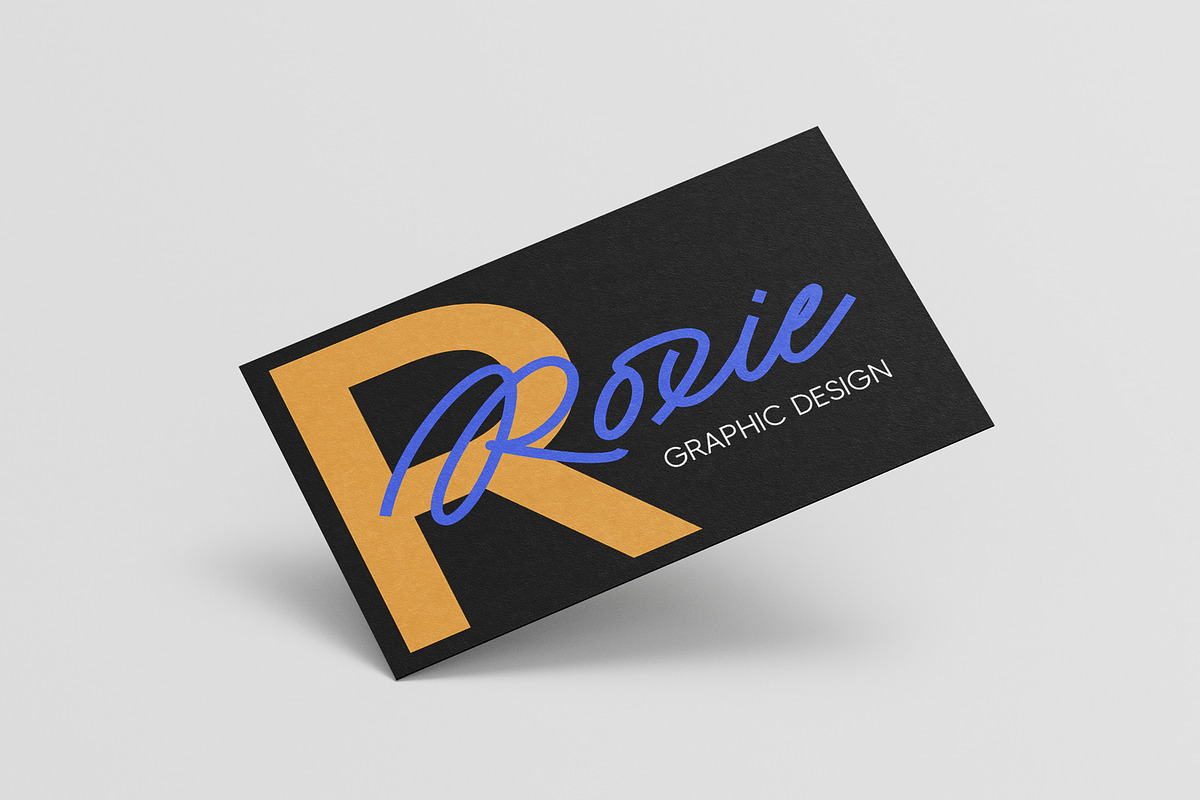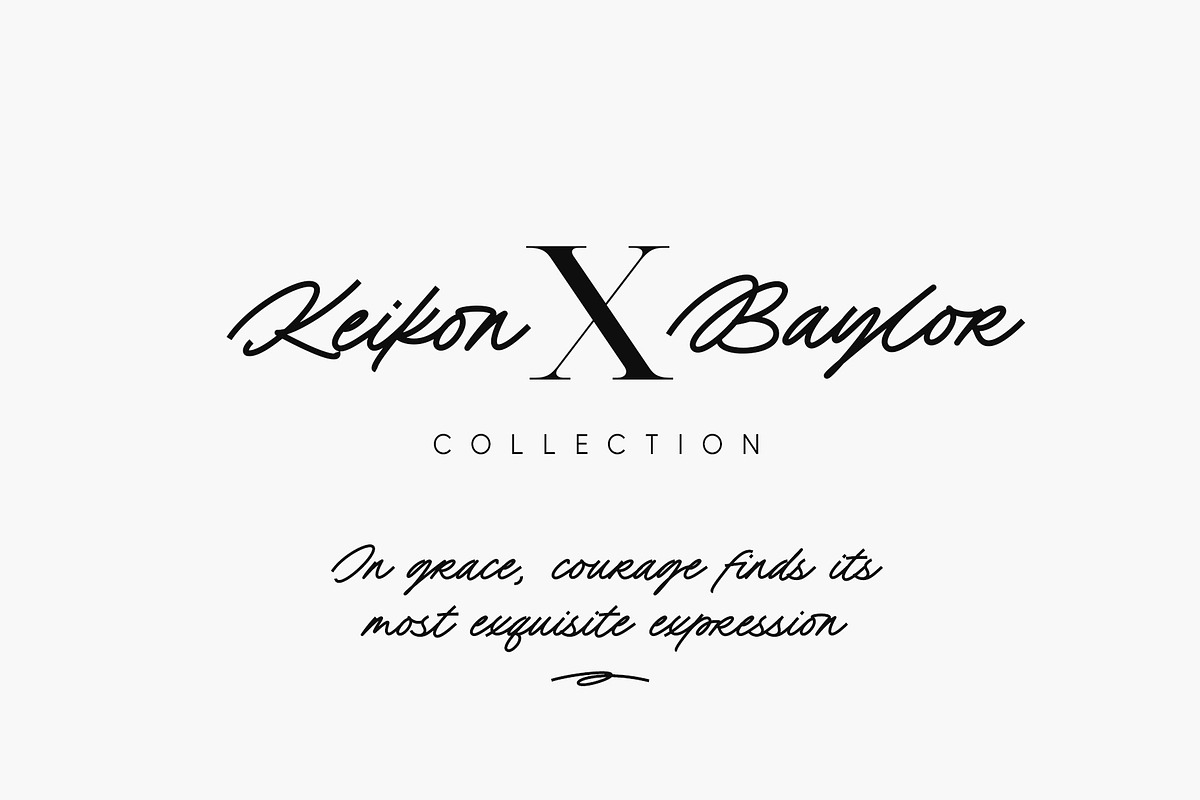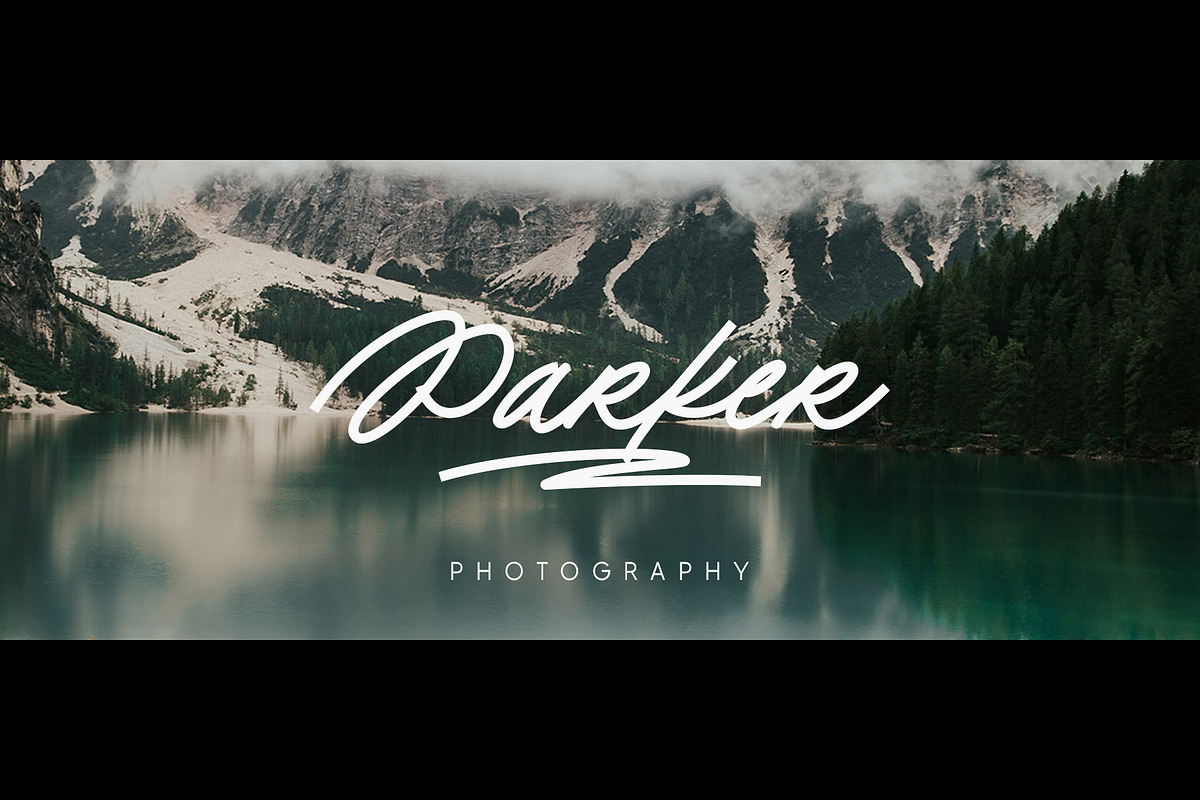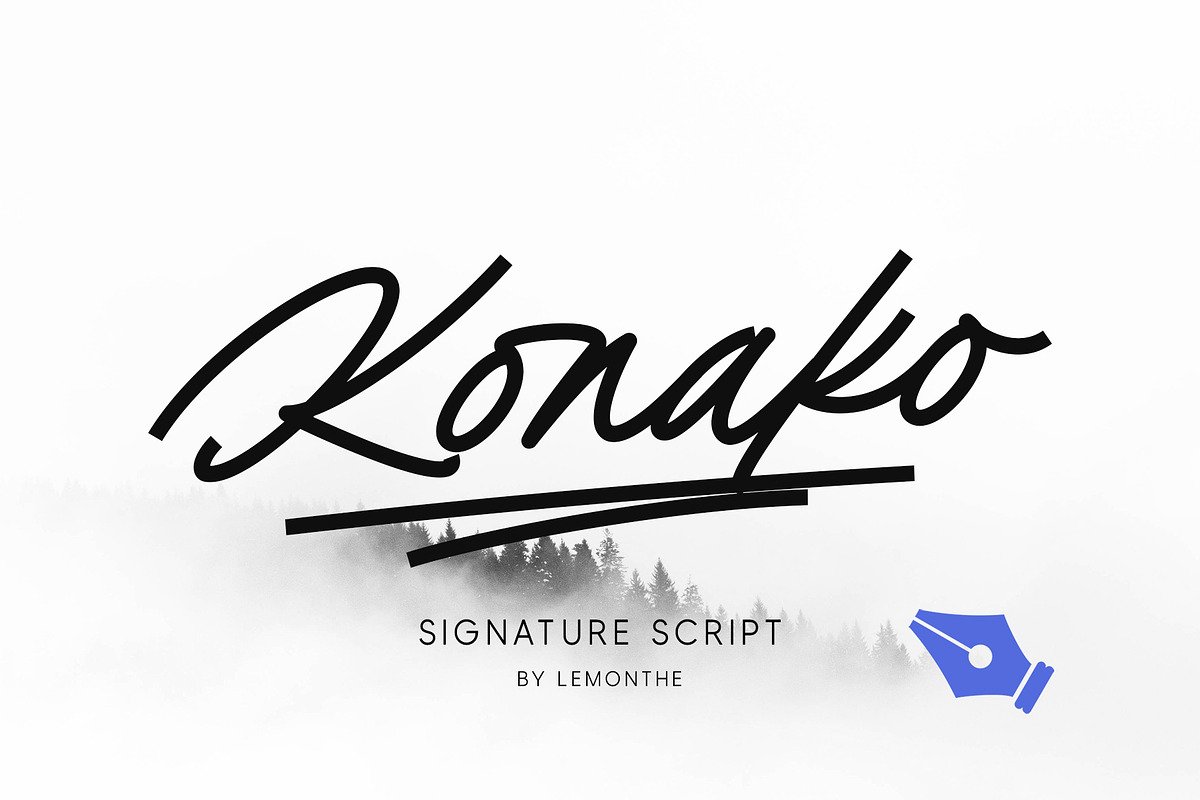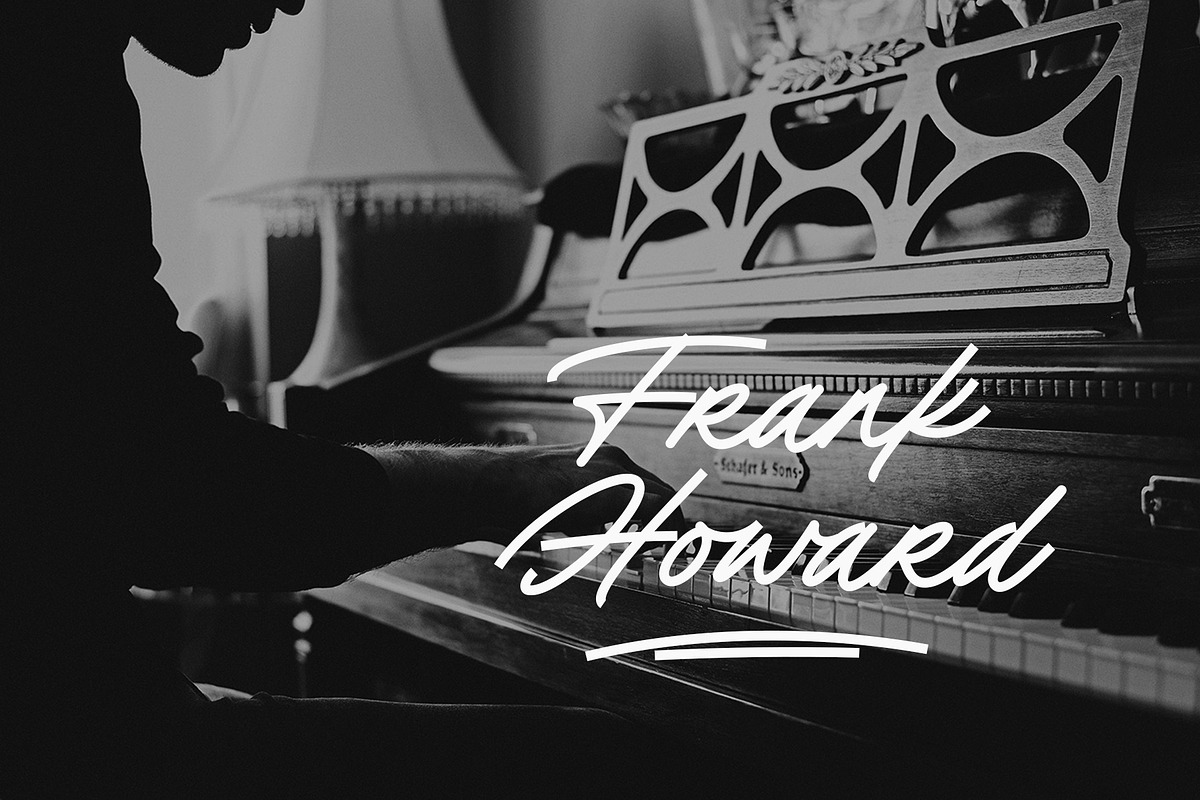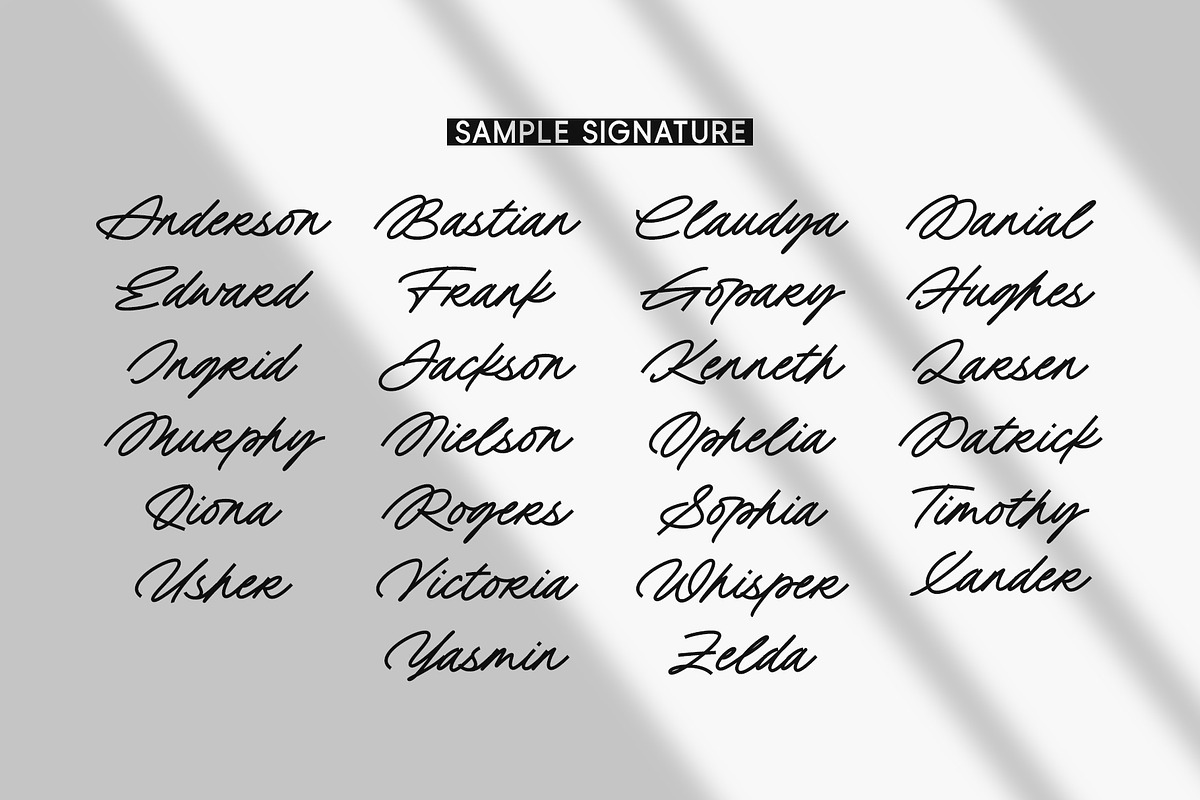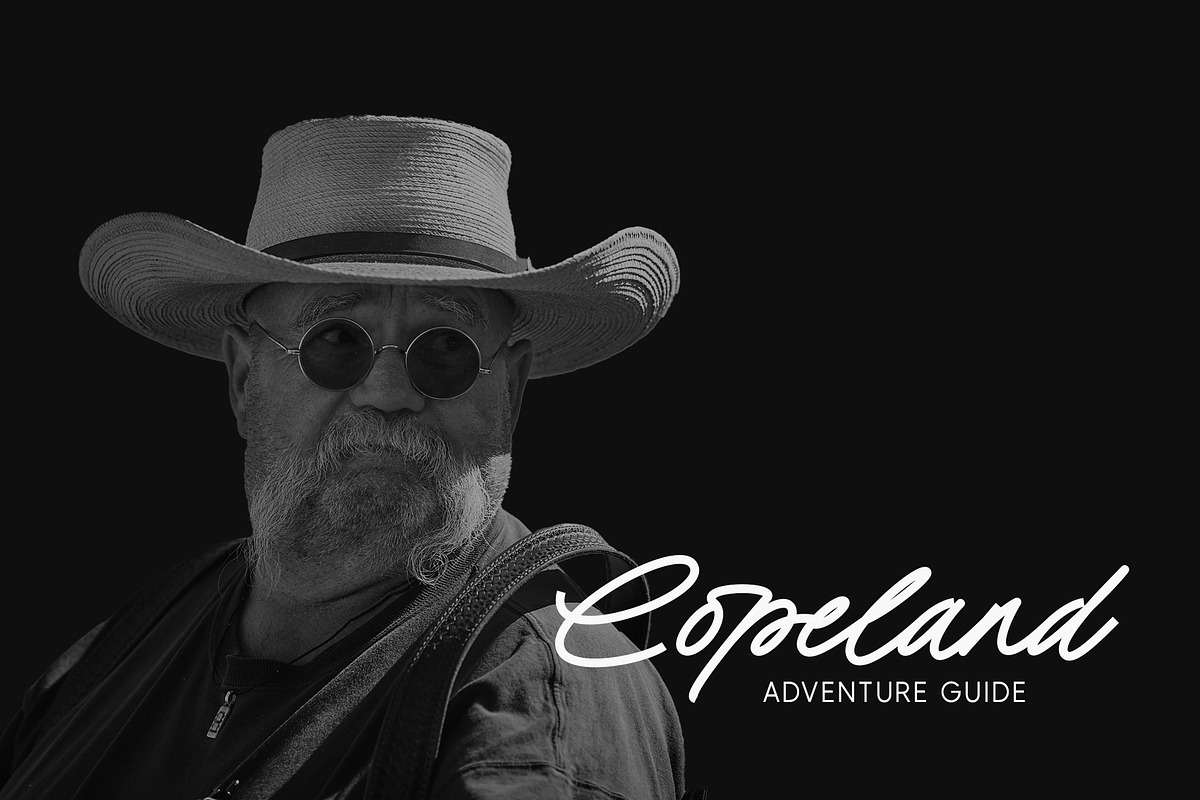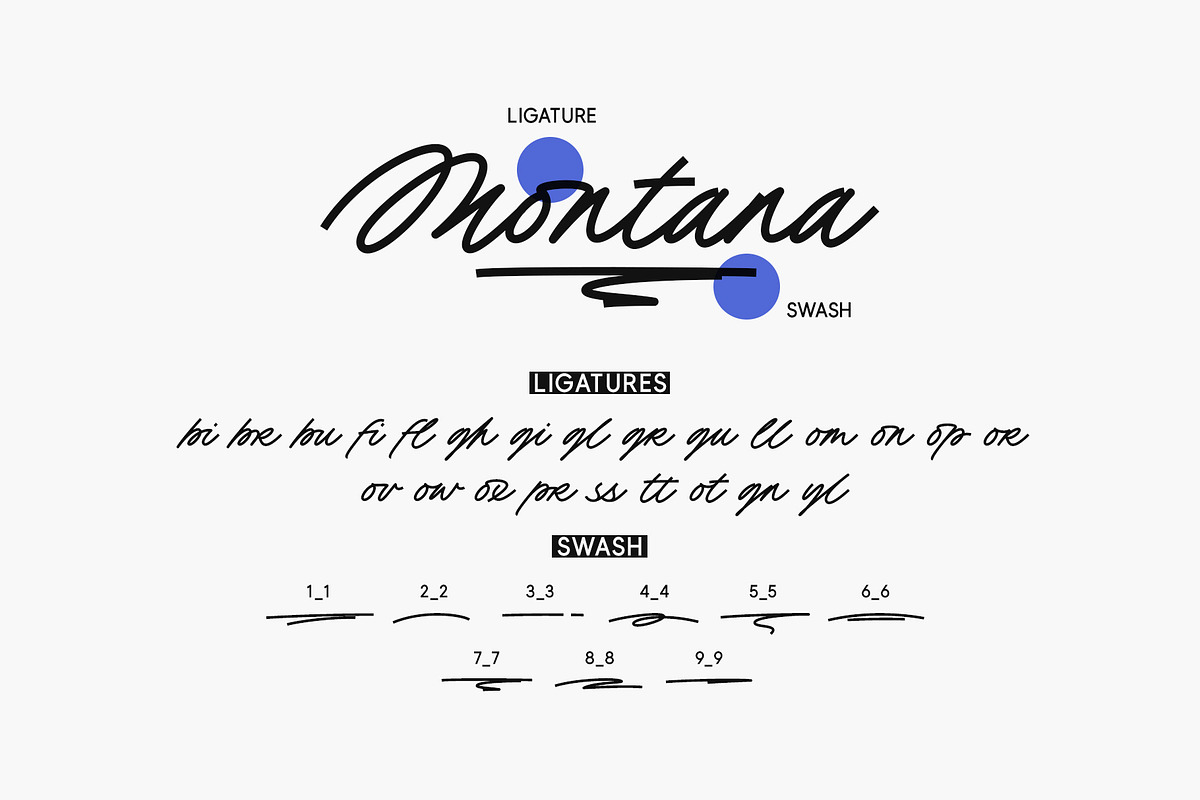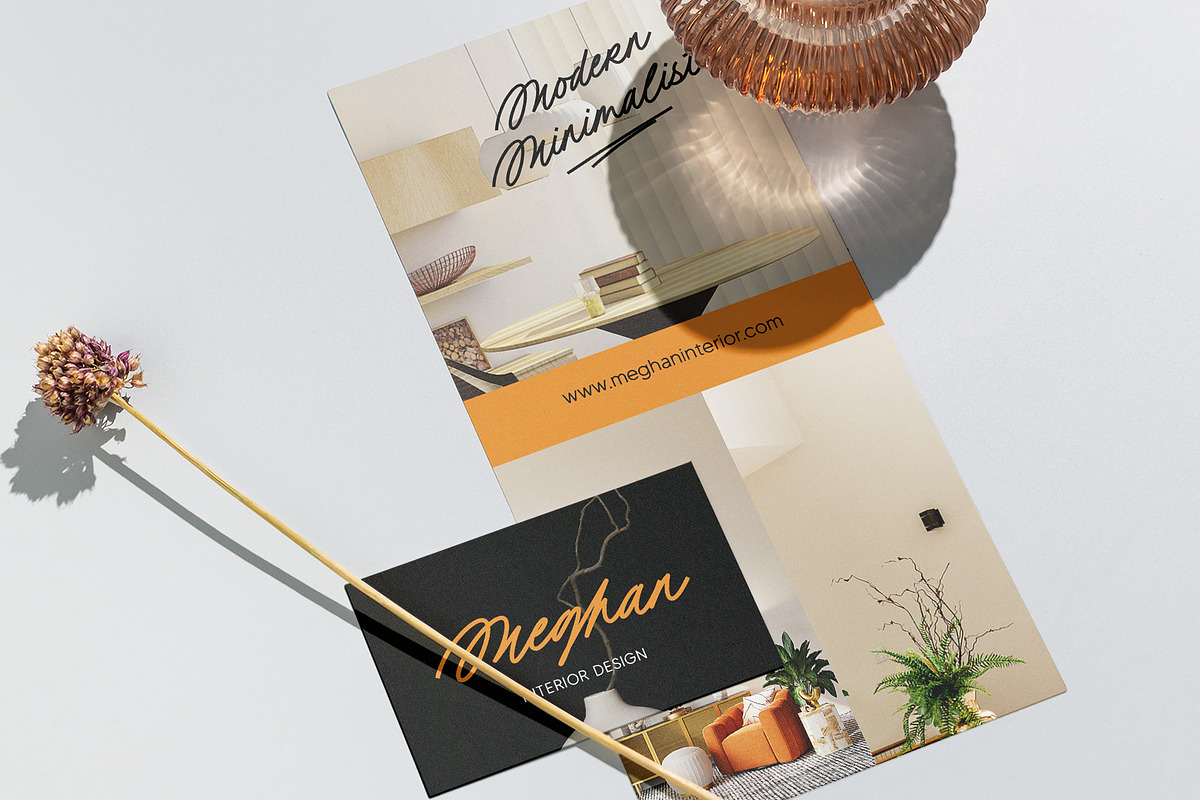
Konako | Monoline Signature
Konako is a captivating monoline signature script font, equipped with ligature and swash features that add a special touch to every design. With elegant and smooth handwritten characteristics, each letter seamlessly connects, creating a clean and modern impression. This font is the perfect choice for logo design, branding, business cards, signatures, posters, labels, titles, promotional materials, or other creative projects, offering the ability to create an attractive and professional appearance.
- Swash: Add number (1–9) + underscore + number (1–9) Example: 1_1, 2_2, 3_3, 4_4, 5_5, 6_6, 7_7, 8_8, 9_9